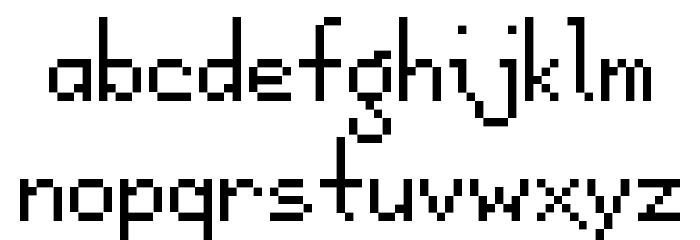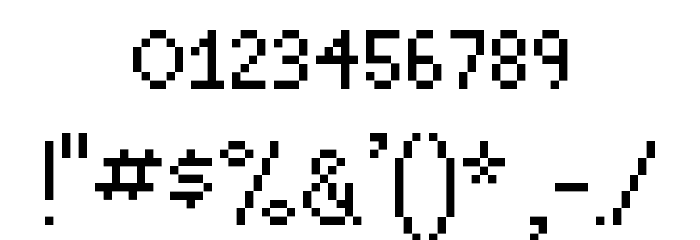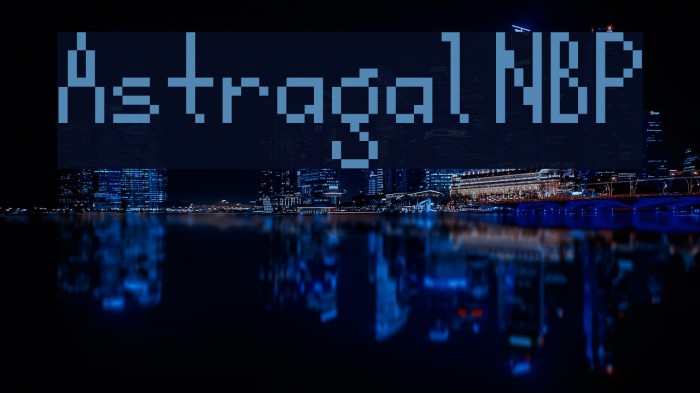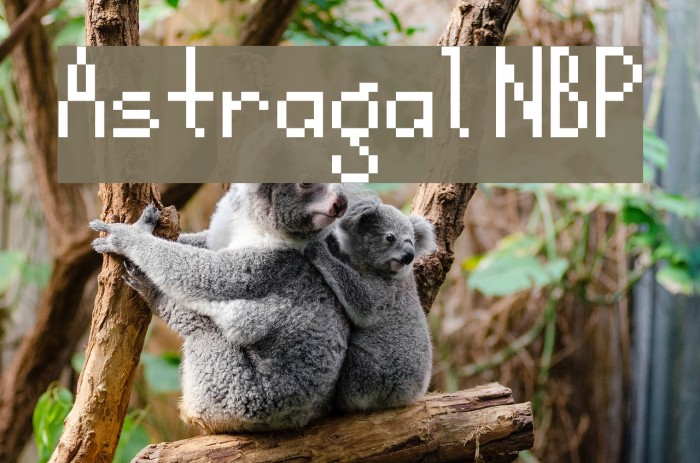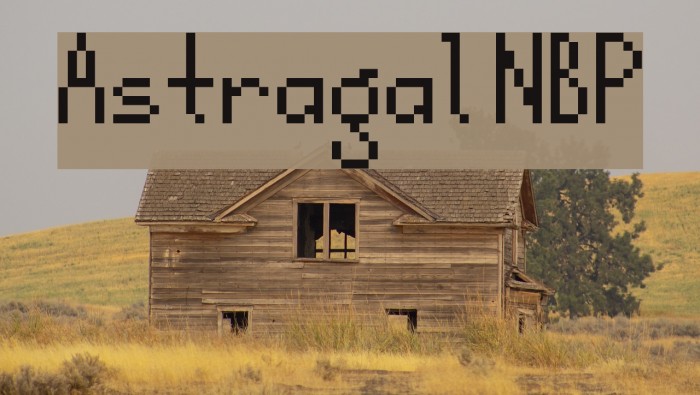
Astragal NBP Font
This font features a pixelated, blocky design reminiscent of early digital displays and retro video games. Each character is constructed with a grid-like precision, giving it a distinctly digital and nostalgic feel. The uppercase and lowercase letters maintain a consistent height, while the numerals and special characters follow the same pixelated style, ensuring uniformity across the typeface. The simplicity of the design makes it highly legible, even at smaller sizes, while the unique style adds a playful, vintage touch to any project.
A pixelated, retro-style font with a blocky, digital appearance.
- Proposed Projects: Ideal for retro video game designs, digital art projects, tech-themed posters, and nostalgic branding.
- Overall Style: Vintage